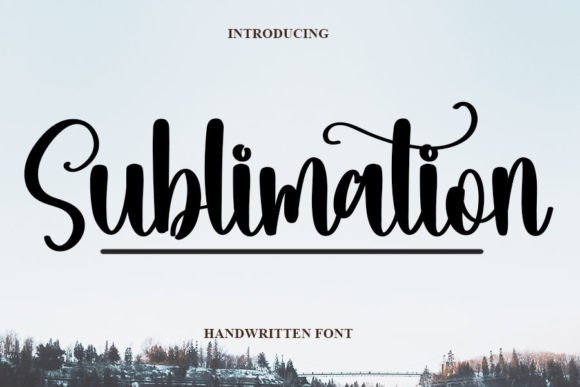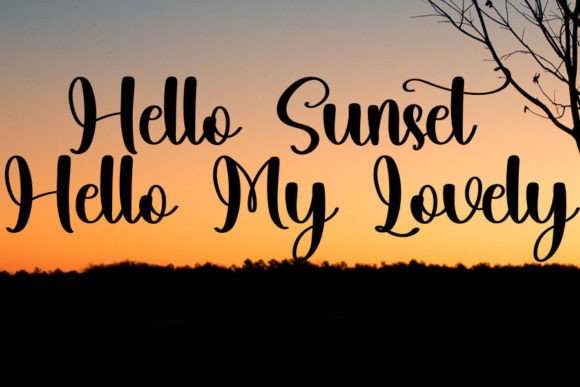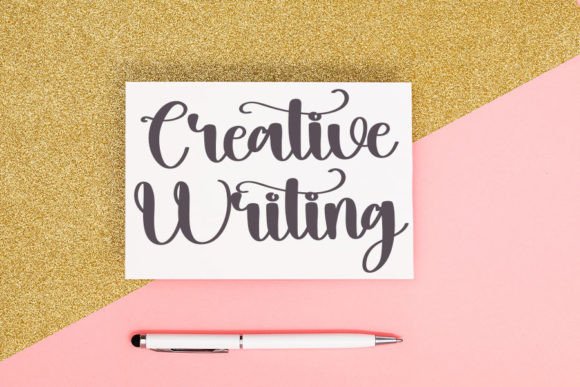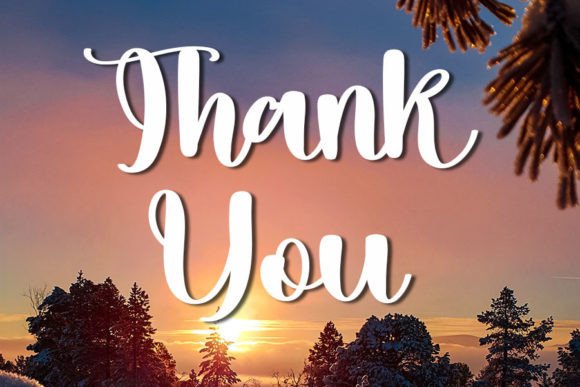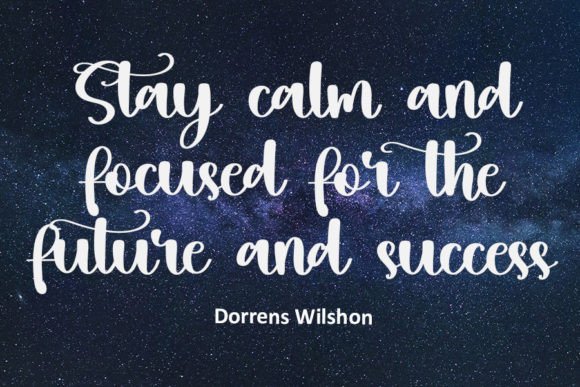
Sublimation Font
Add a warm and friendly vibe to your creative projects with the Sublimation font. This handwritten script is carefully designed to become a true favorite. Its charming style brings life and personality to any design.
The Sublimation font is a perfect addition to your font library. It works well in many applications, such as logos, branding, invitations, social media posts, and more. This font helps your creations stand out with its friendly and approachable look.
Each character in the Sublimation font is crafted with care. The strokes are smooth and well-balanced, offering both style and readability. This makes it ideal for headlines, quotes, greeting cards, and decorative text.
Despite its friendly design, the Sublimation font remains highly readable at various sizes. Whether used for bold titles or subtle accents, it adds warmth and charm to your projects.
Using this font will help your designs capture attention with a unique and memorable style. If you want your creative work to look lively and inviting, the Sublimationfont is an excellent choice.
In summary, the Sublimationfont suits many creative needs. From branding and invitations to social media and logos, it brings friendliness and style. Download it today and create stunning, lively designs with this handwritten script.